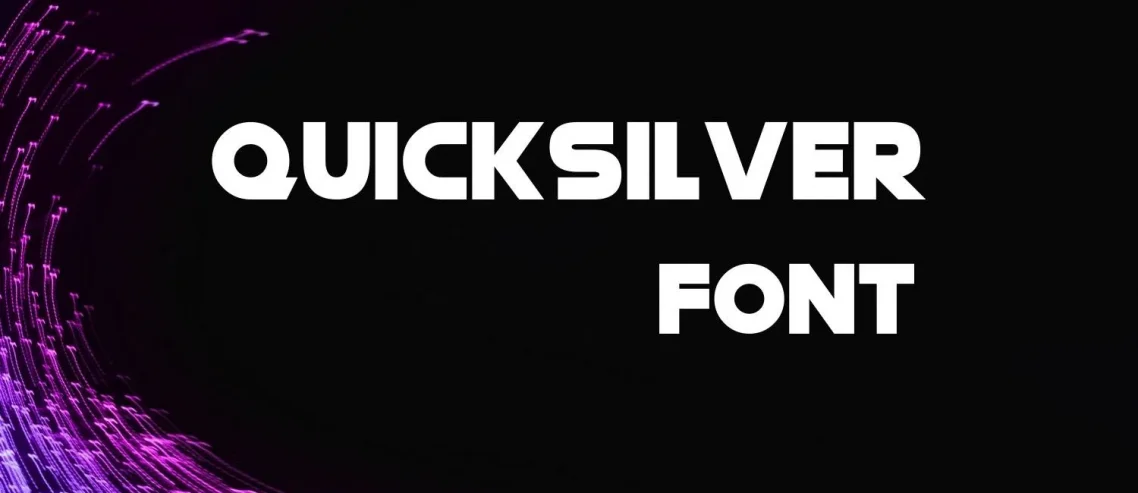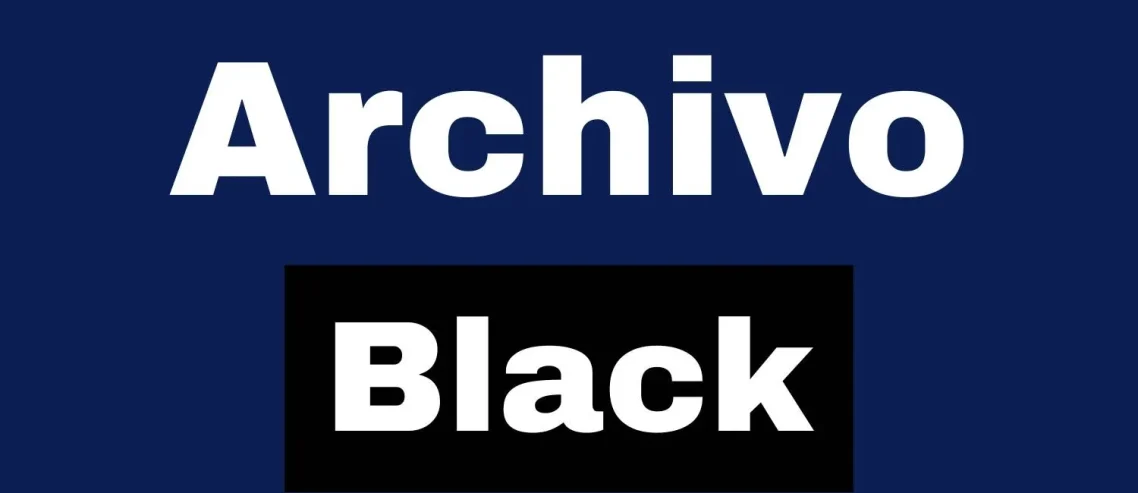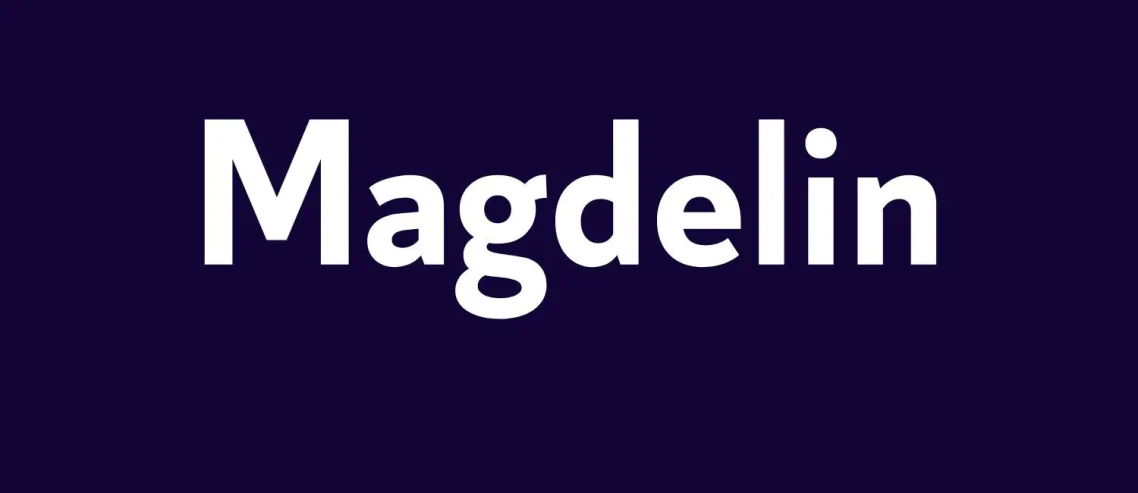
Zimbra Font Free Download
Zimbra Font is an appealing and modern typeface. The characters of this typeface are filled with different diagonal lines with large X-axis height and width. This typeface belongs to the fancy font family. You can easily use this fancy typeface in Canva, Adobe Photoshop, Illustrator, and Capcut. This typeface is similar to cute letters font …
Strange Days Font Free Download
Strange Days Font is a new script font that was created to help people communicate more effectively. This font was designed by Richie Mx. The glyphs of this font are all based on rounded shapes which are known to promote clarity and understanding. It is quite similar to the megalia script font and it has …
Magdelin Font Free Download
Magdelin font has gothic sans serif characters and it took some inspiration from the humanist class as well which you can easily see in the letterforms. The smooth curves and modern appearance of this font are perfect for all types of design projects. You can pair this typeface with Billie Kimber Font to give a …
Herb Lubalin Font Free Download
Herb Lubalin Font is a member of the Slab Serif Family. The designer of this stunning serif font is Herb Lubalin. He is famed for his work in magazines and publications such as Avant-Garde and Esquire. You can get help from this font to make aesthetic logos, Creative social media posts, and Attractive advertisements. You …
Quicksilver Font Free Download
Quicksilver Font was designed by Frederic Goudy in 1936. The design is an old-style sans-serif typeface with strong horizontal lines. This Font is available in both regular and bold weights. It is currently one of the most popular fonts used in advertising and branding. This Font has a long history dating back to the early …
Archivo Black Font Free Download
Archivo Black Font falls under the category of the grotesque sans-serif typeface family that was created by the famous font designers Hector Gatti and Pablo Cosgaya from Omnibus-Type. This typeface has a very bold and unique appearance that looks very close to the amazon logo font. Font Family Archivo black regular Similar to Archivo Black …